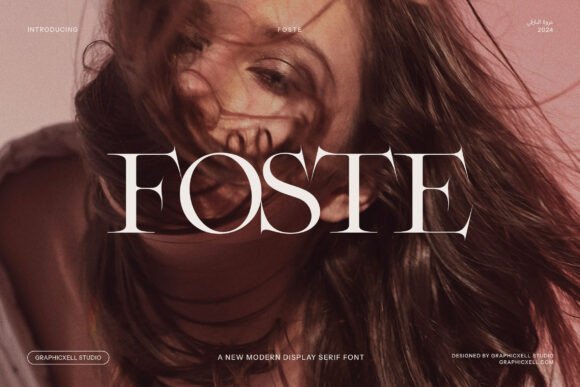
Introducing Foste: The Ultimate Display Serif Font for Vintage Sophistication
In the world of typography, a font can make all the difference in capturing the essence of a brand or design. For those seeking a bold and elegant display serif font that exudes vintage sophistication, look no further than Foste. This stunning font effortlessly combines classic aesthetics with a fresh twist, making it perfect for projects that demand both refinement and a commanding presence.
The Unique Design of Foste
Foste’s design is characterized by its sharp, elongated corners and unique proportions. These distinctive features channel a classic aesthetic while offering a modern edge. The font’s striking design is perfect for logos, branding, and high-impact design work, making it an ideal choice for those seeking to make a statement.
The distinct, angular corners of Foste give it an unmistakable vintage vibe, evoking the grandeur of old-world typography. At the same time, its modern edge ensures that it remains fresh and relevant. This balance of classic and contemporary elements makes Foste an excellent font for premium branding.
Perfect for Premium Branding
Foste is an excellent choice for premium branding, whether you’re creating a standout logo, curating a chic boutique aesthetic, or designing eye-catching product packaging. Its unique structure adds personality to any layout, providing a striking contrast to minimalist designs. This makes it a versatile choice for magazines, websites, and advertisements.
From the pages of fashion magazines to the shelves of gourmet food products, Foste enhances any design with its timeless appeal. Its dynamic presence works beautifully across a variety of mediums, from print to digital, effortlessly blending vintage charm with contemporary style.
Elegance, Uniqueness, and Versatility
Foste’s elegance, uniqueness, and versatility make it the perfect font for a wide range of design projects. Whether you’re crafting an elegant editorial layout, building a stylish website, or designing promotional materials for boutique businesses, Foste ensures your brand stands out with sophistication and flair.
The font’s ability to balance elegance and uniqueness makes it an excellent choice for designs that require a high level of refinement. At the same time, its versatility ensures that it can be used across a variety of mediums and applications.
Why Choose Foste?
So why choose Foste for your next design project? Here are just a few reasons:
- Timeless appeal: Foste’s classic aesthetic ensures that your design will remain timeless and relevant for years to come.
- Unique design: Foste’s sharp, elongated corners and unique proportions make it a standout font that will set your design apart.
- Versatility: Foste can be used across a variety of mediums and applications, from print to digital.
- Elegance and sophistication: Foste’s elegant design ensures that your brand will be presented with sophistication and flair.
In conclusion, Foste is a bold and elegant display serif font that is perfect for projects that demand both refinement and a commanding presence. Its unique design, timeless appeal, and versatility make it an excellent choice for premium branding, logos, and high-impact design work.
Whether you’re a designer, brand owner, or simply someone looking for a font that will elevate your next project, Foste is an excellent choice. With its ability to balance elegance, uniqueness, and versatility, Foste is sure to leave a lasting impression.
Key Features of Foste
- Display serif font: Foste is a bold and elegant display serif font.
- Sharp, elongated corners: Foste’s sharp, elongated corners give it a unique and distinctive design.
- Unique proportions: Foste’s unique proportions make it a standout font.
- Timeless appeal: Foste’s classic aesthetic ensures that your design will remain timeless and relevant for years to come.
- Versatility: Foste can be used across a variety of mediums and applications.
Get Ready to Elevate Your Design with Foste
Are you ready to elevate your next design project with Foste? With its bold and elegant design, Foste is sure to make a lasting impression. Whether you’re a designer, brand owner, or simply someone looking for a font that will take your design to the next level, Foste is an excellent choice.